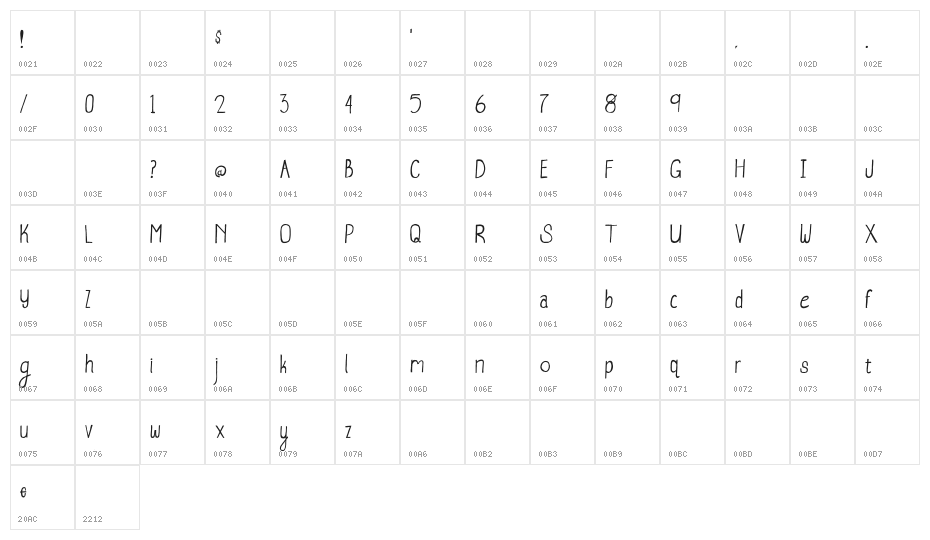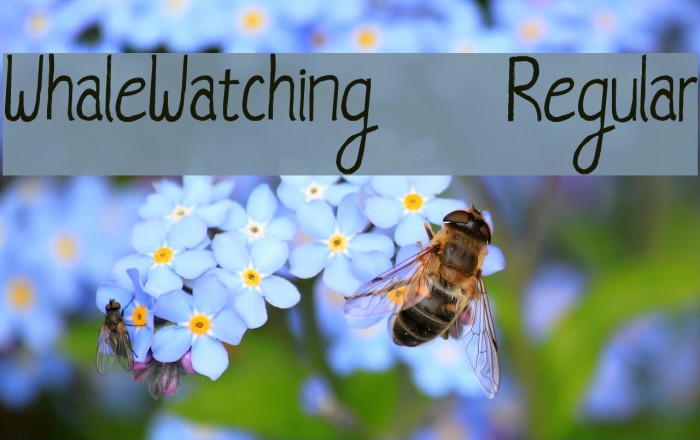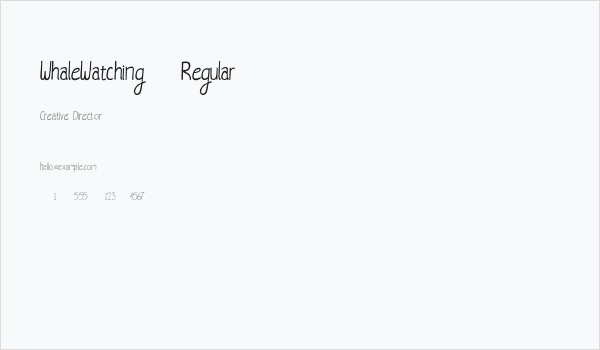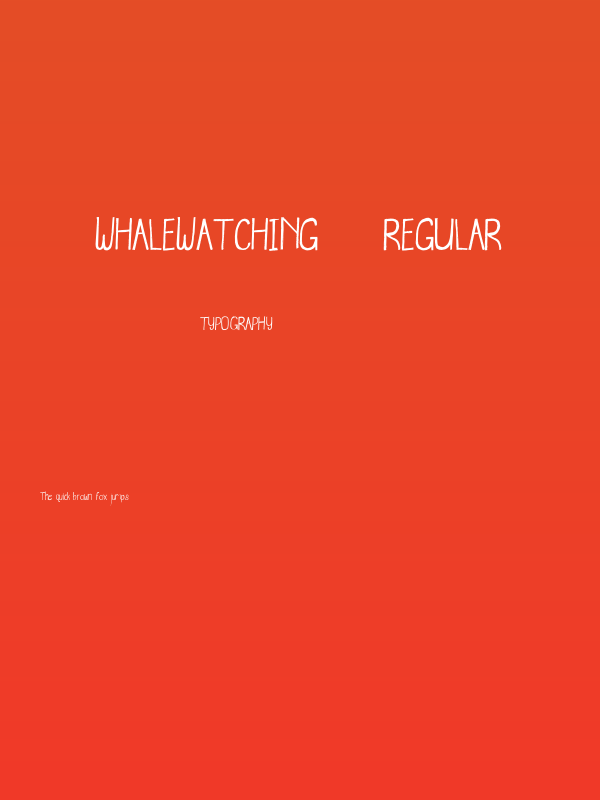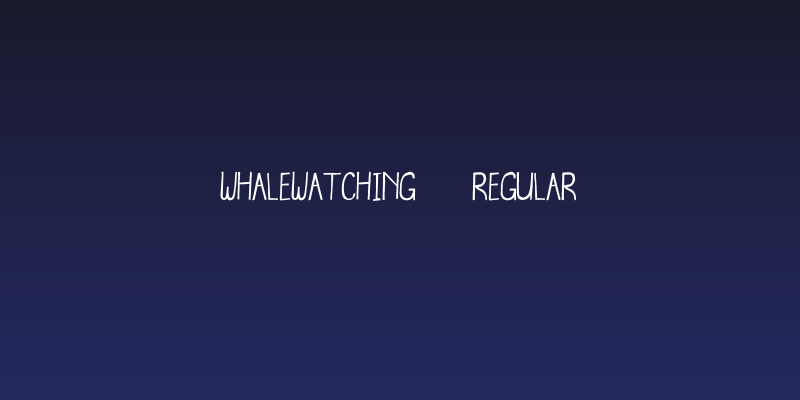
WhaleWatching-Regular Font
WhaleWatching-Regular Description
This font features a playful and whimsical style with a handwritten appearance. The letters are slightly irregular, giving a casual and friendly feel. The uppercase letters are tall and narrow, while the lowercase letters have a more relaxed and flowing form. The numbers maintain the same playful aesthetic, with unique curves and angles. Special characters are integrated seamlessly, enhancing the font's overall charm. The strokes are consistent in width, contributing to a cohesive look across all characters.
| Overall Style | Whimsical |
| Proposed Projects | Ideal for children's books, greeting cards, playful branding, and creative projects that require a friendly and approachable tone. |